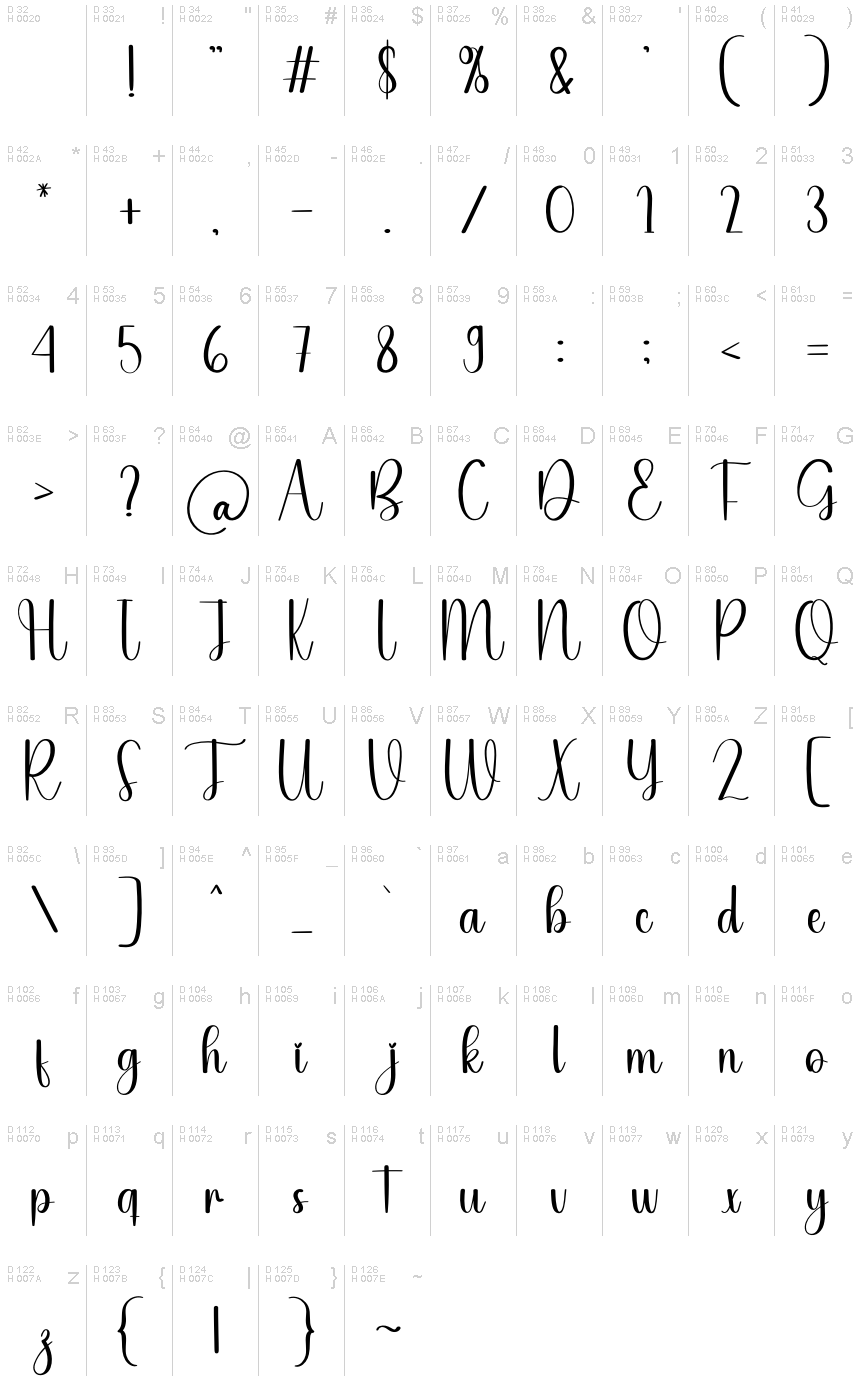
Dry Bakery
Dry Bakery, a creation of Scratchones, exudes a casual elegance with its handwritten style that seems to dance across the page. The organic flow and playful loops evoke the charm of a personal note, giving it an inviting and approachable feel. Its aesthetic appeal lies in the natural variation in stroke thickness that suggests the use of a fluid, expressive brush.
Ideal for projects that require a touch of warmth and individuality, Dry Bakery shines in contexts where personality is key. From branding for artisanal cafes to wedding invitations and greeting cards, this font adds a handcrafted essence that can make any message feel more intimate and bespoke. Its friendly disposition makes it particularly suitable for industries that value authenticity and personal connection.